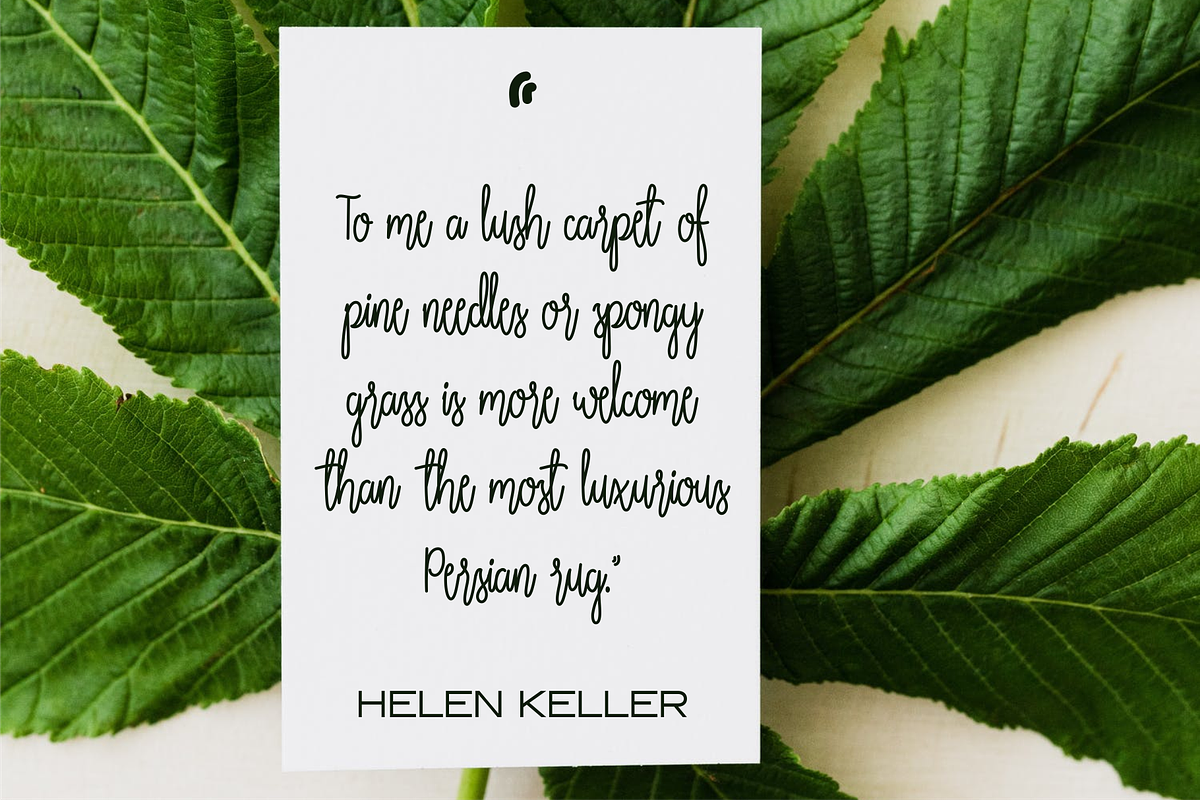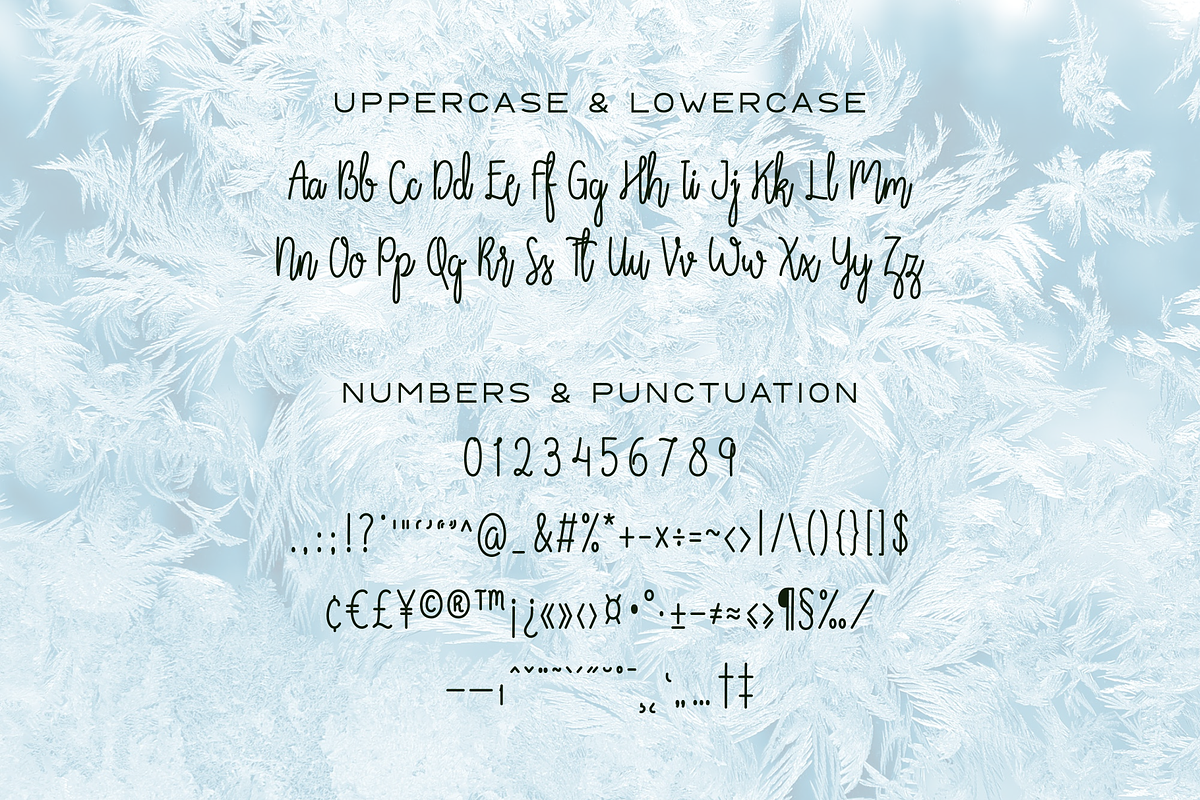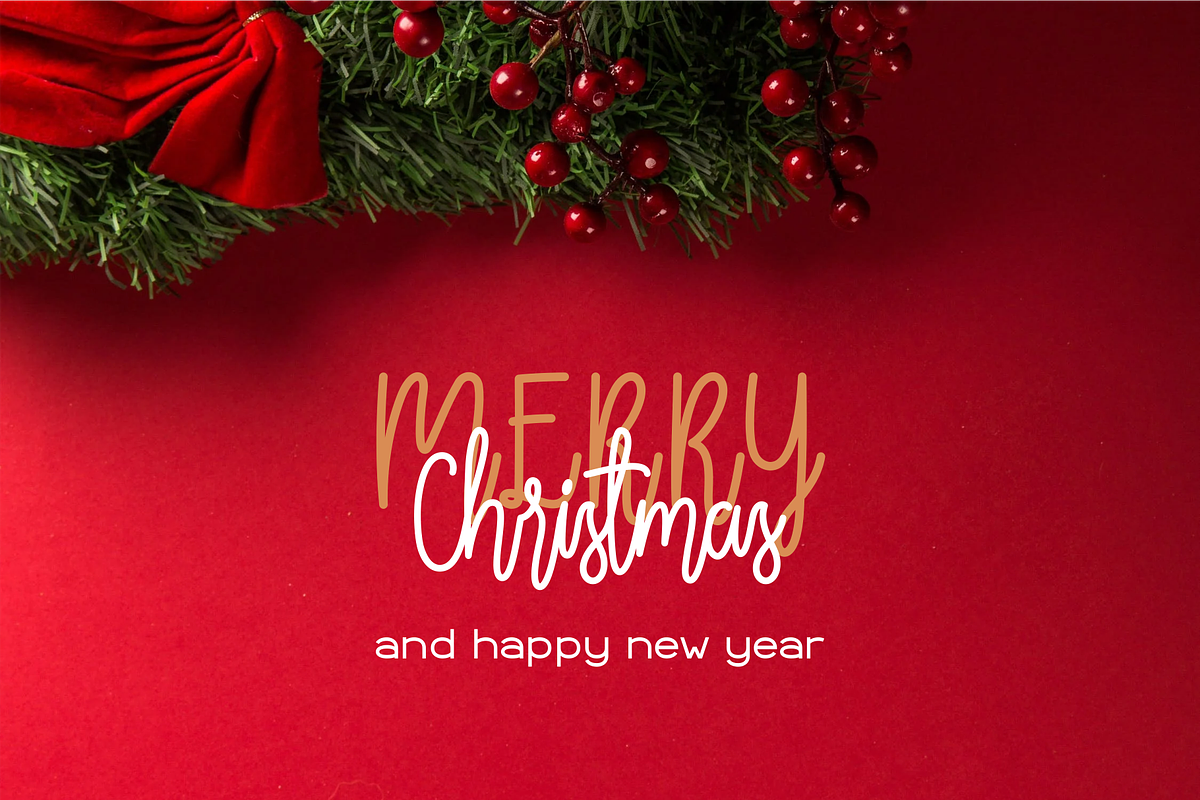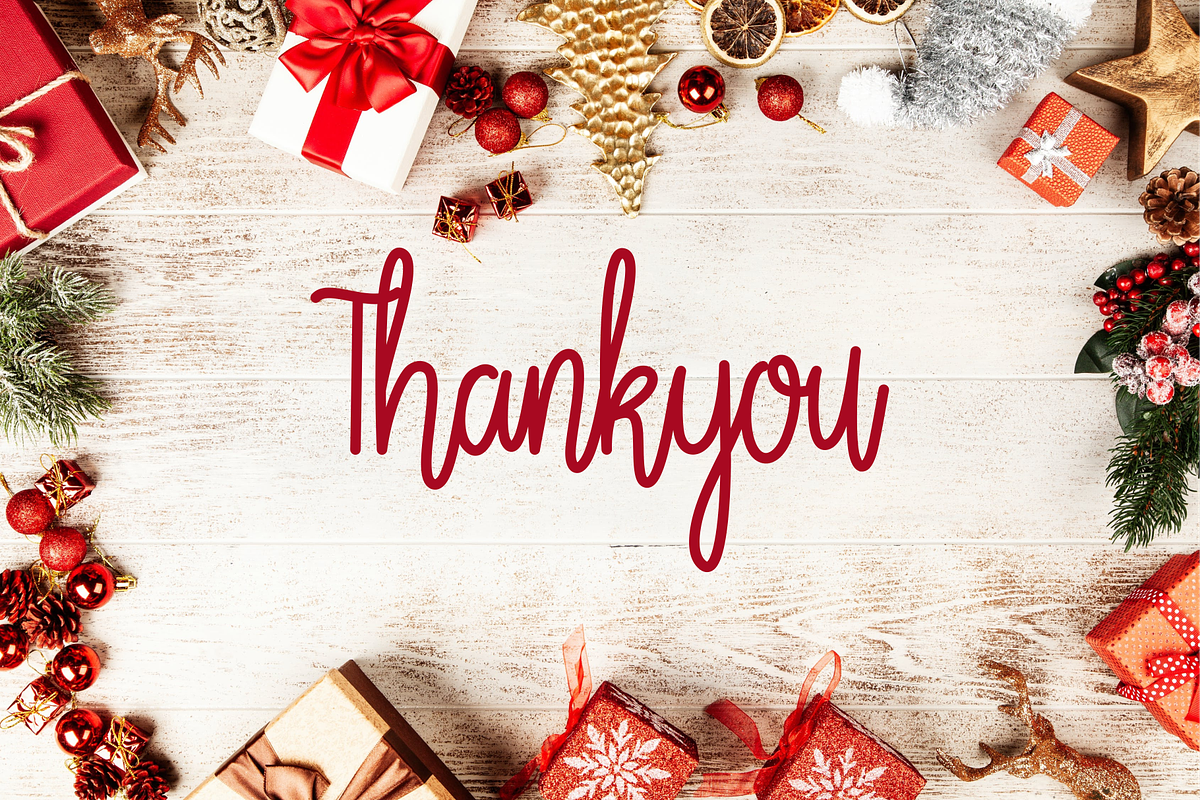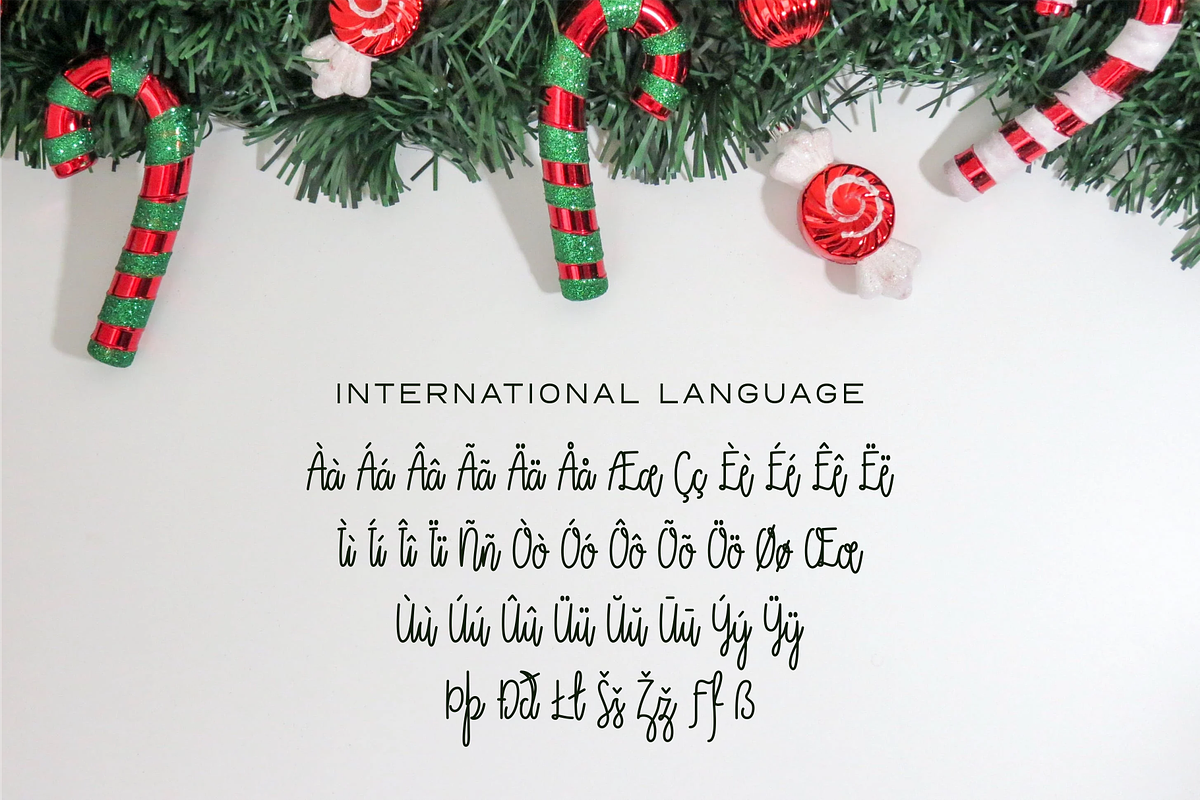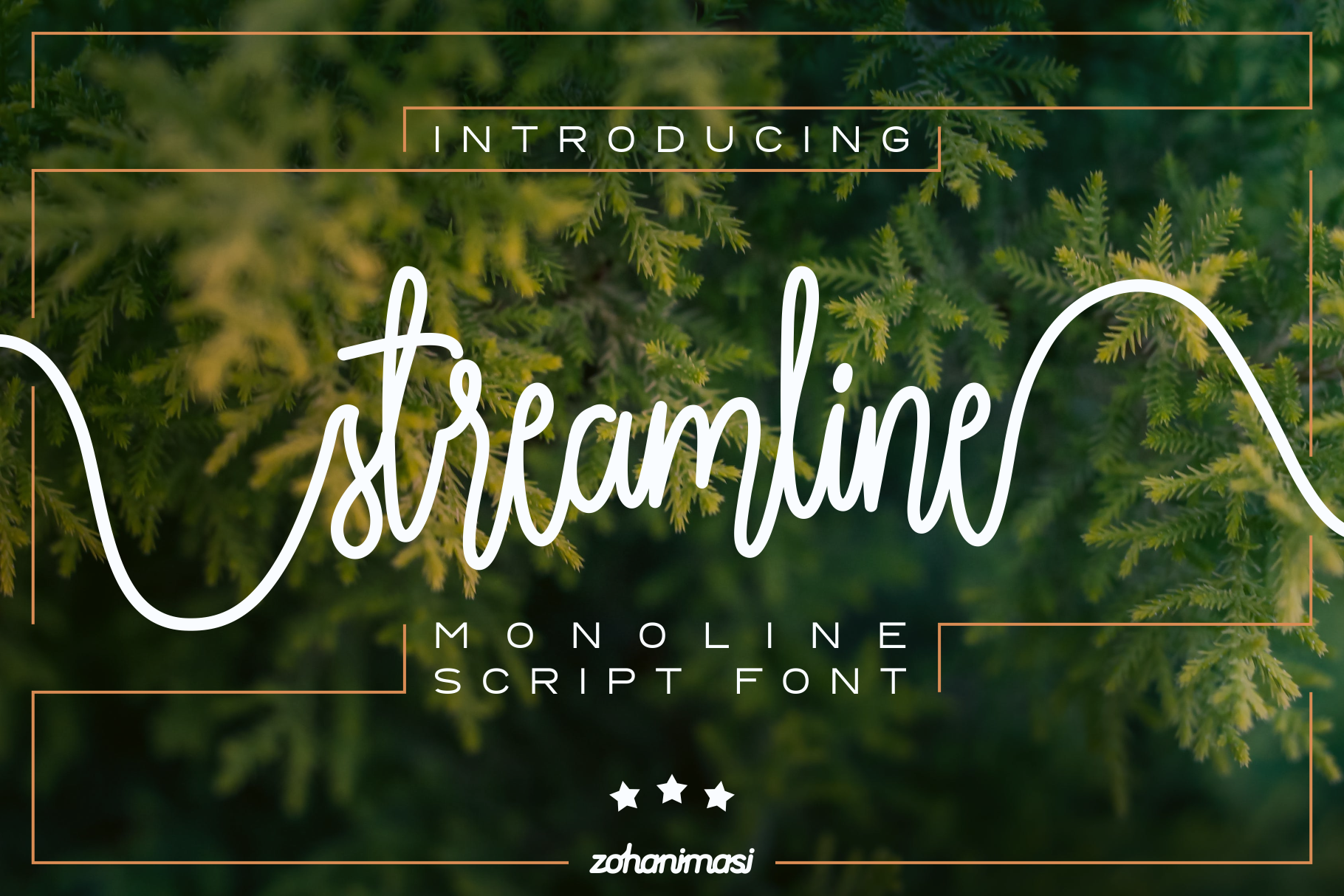
Streamline - Monoline Script Font
Streamline - Monoline Script Font is the perfect font for any purpose: branding, flyer, sign, logo, party, etc.
- Numbers, Punctuation & Symbols
- International Language